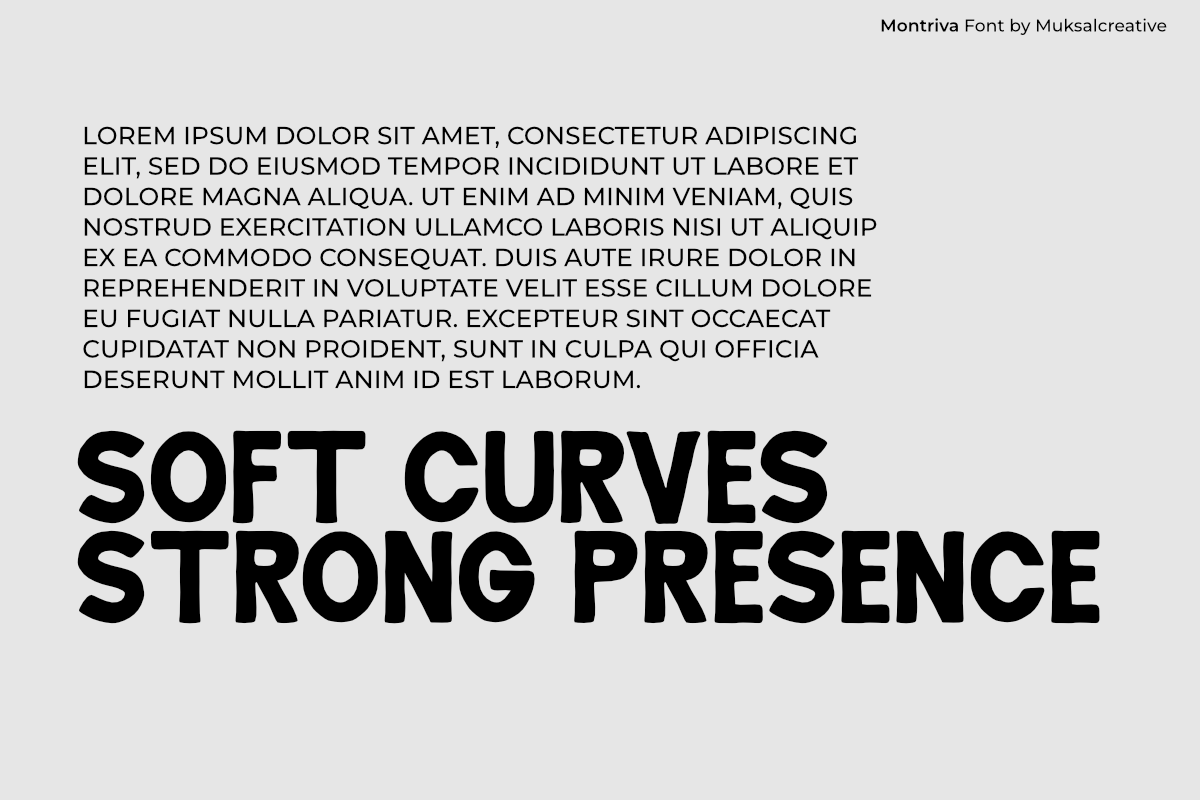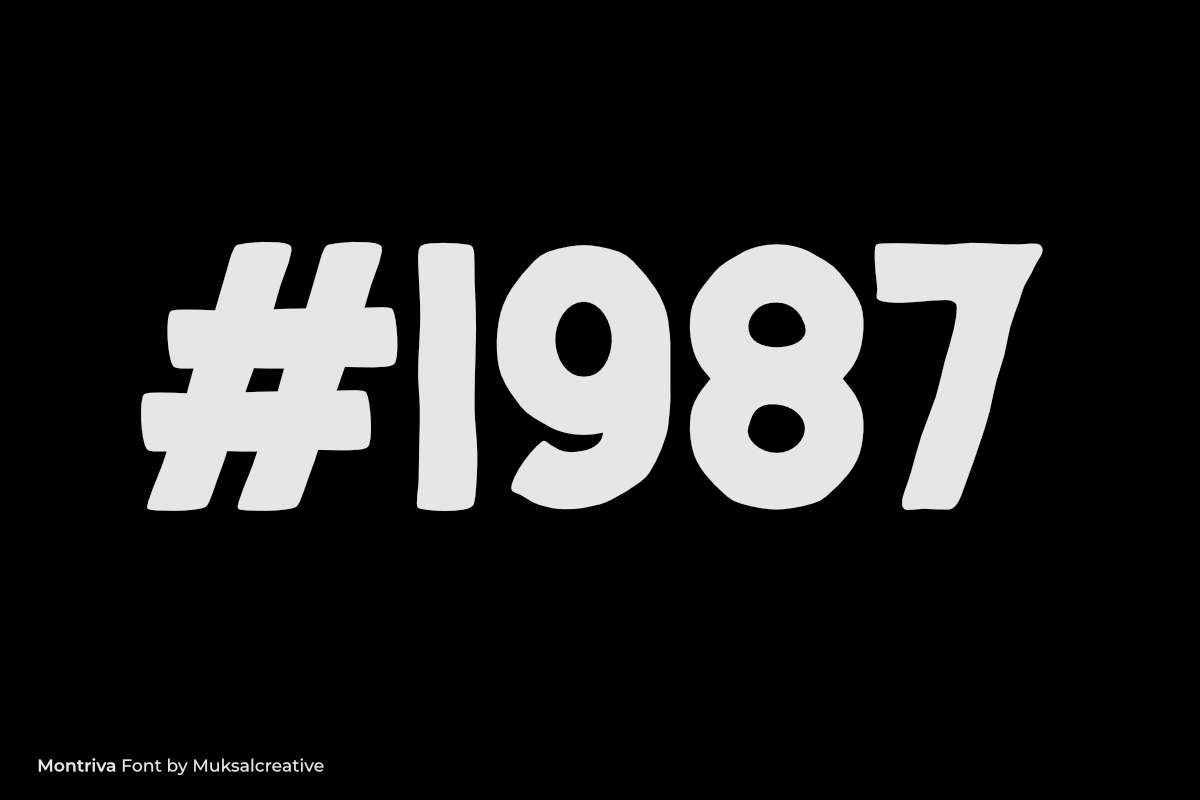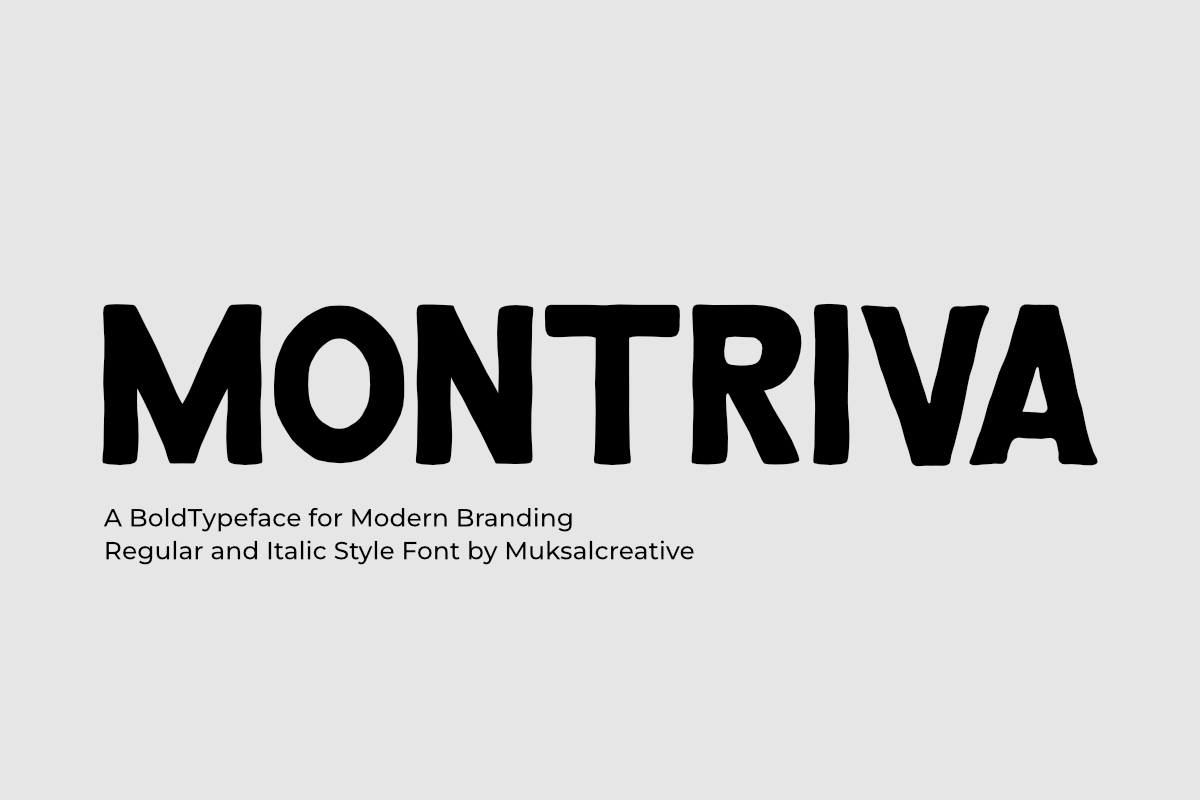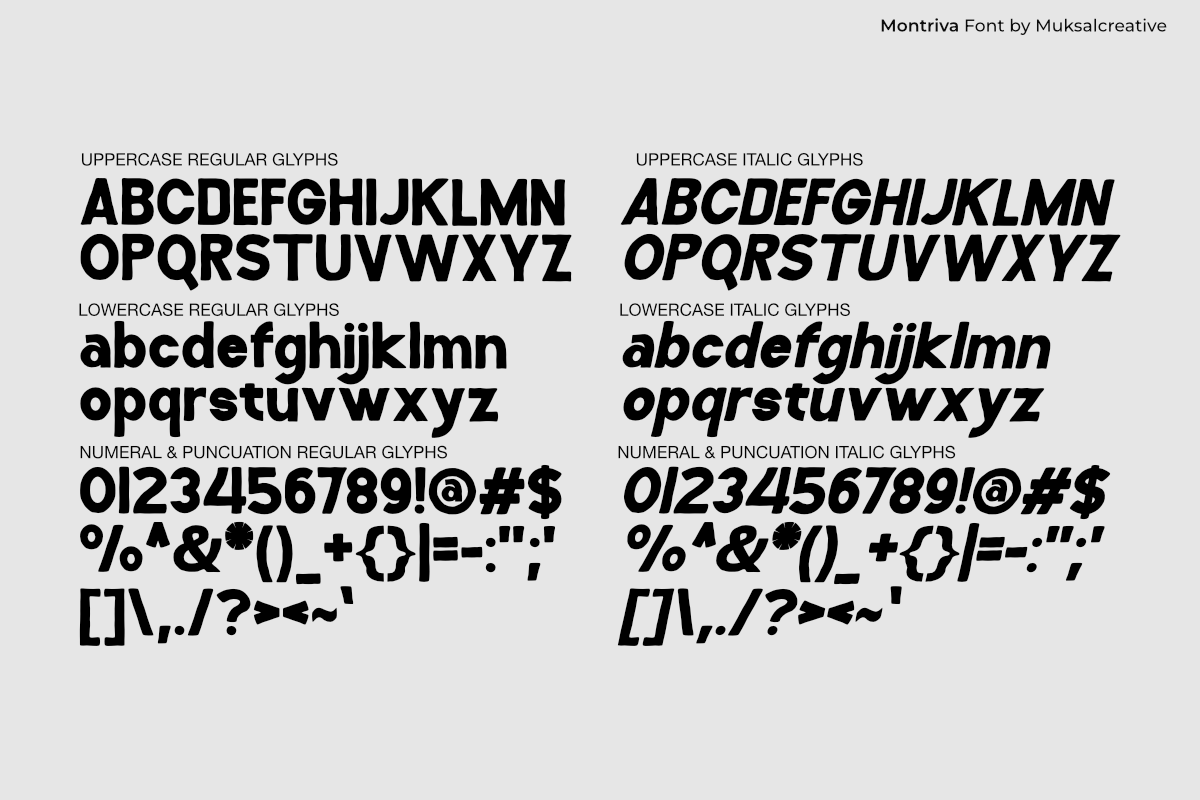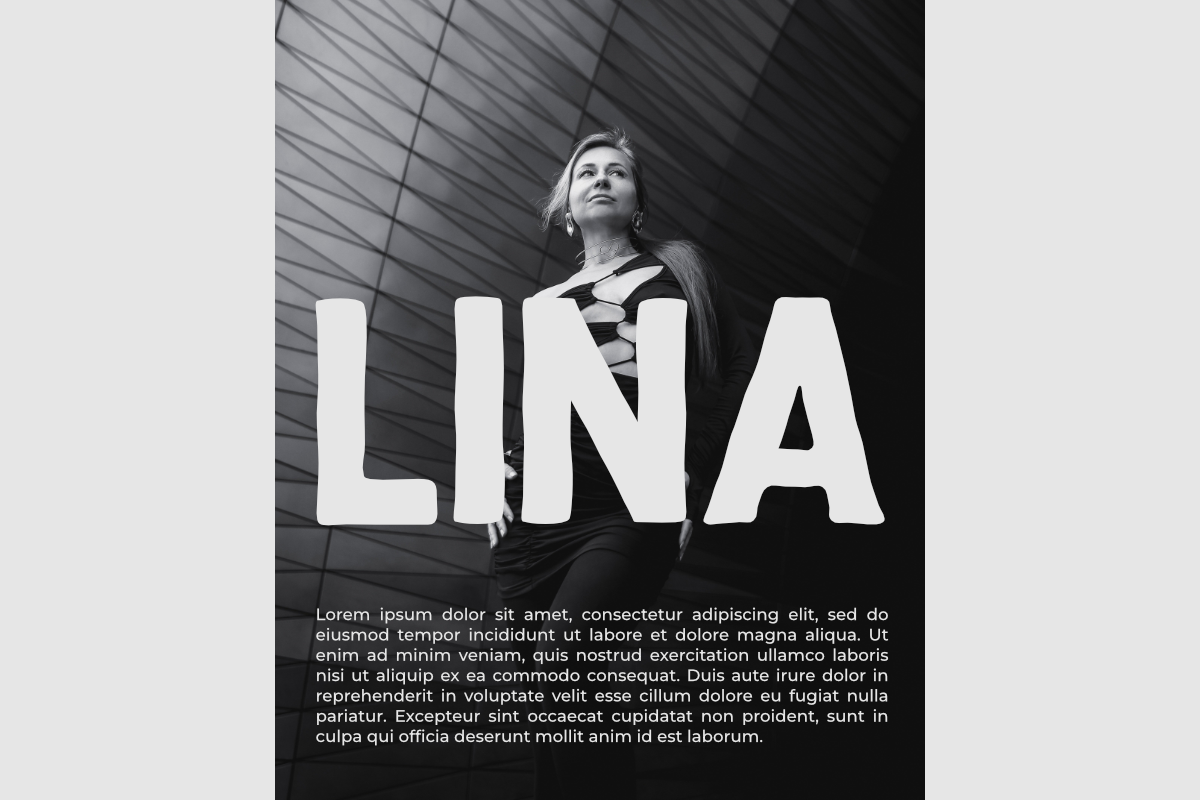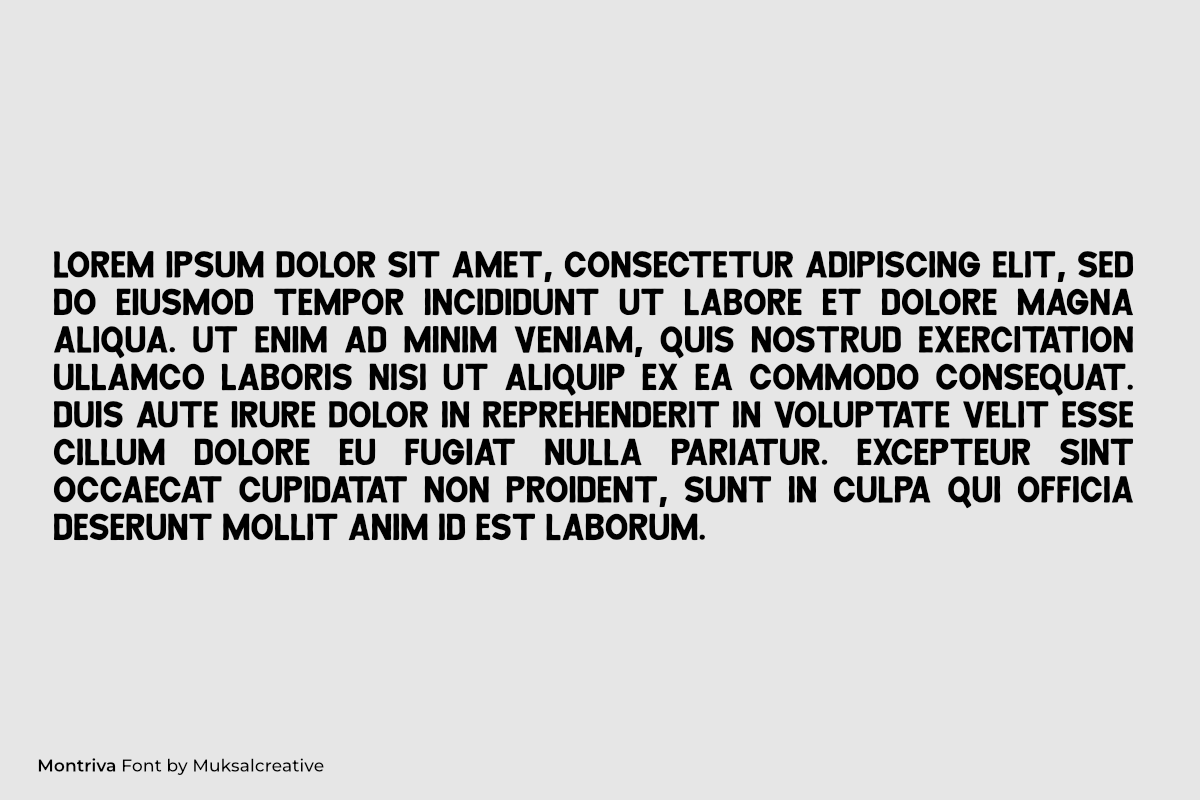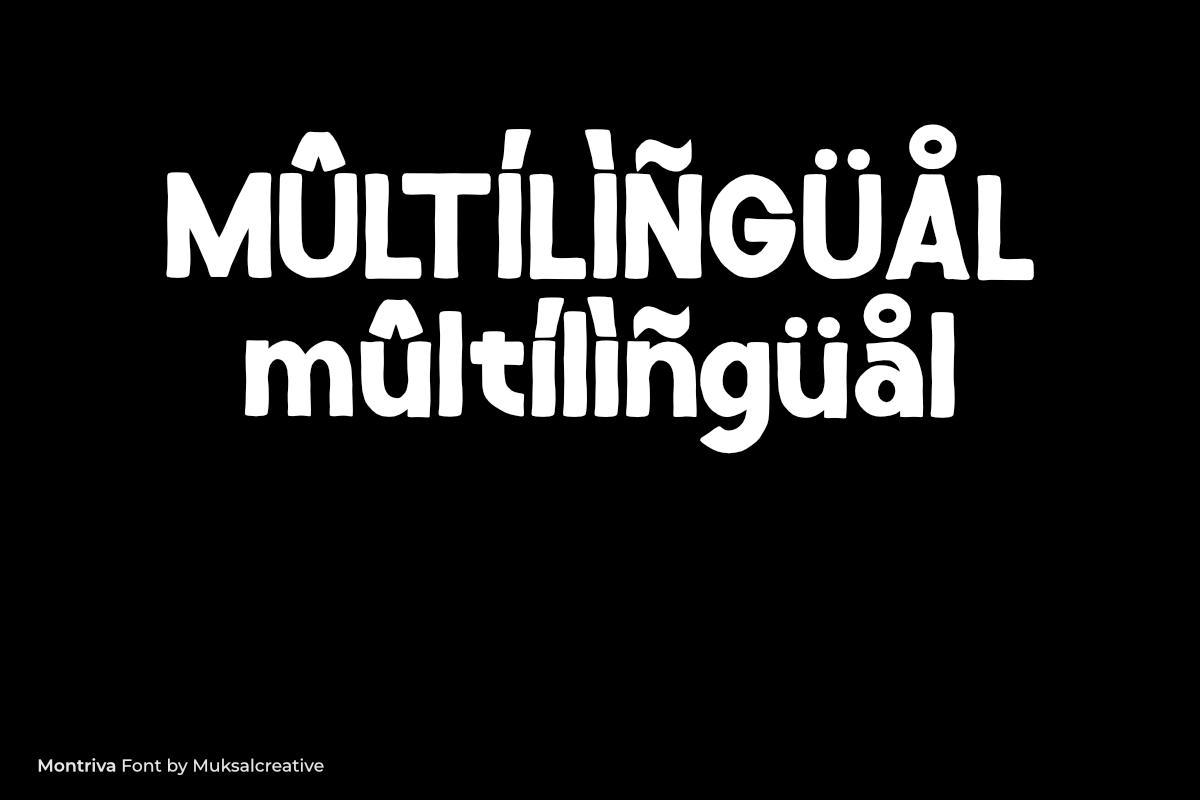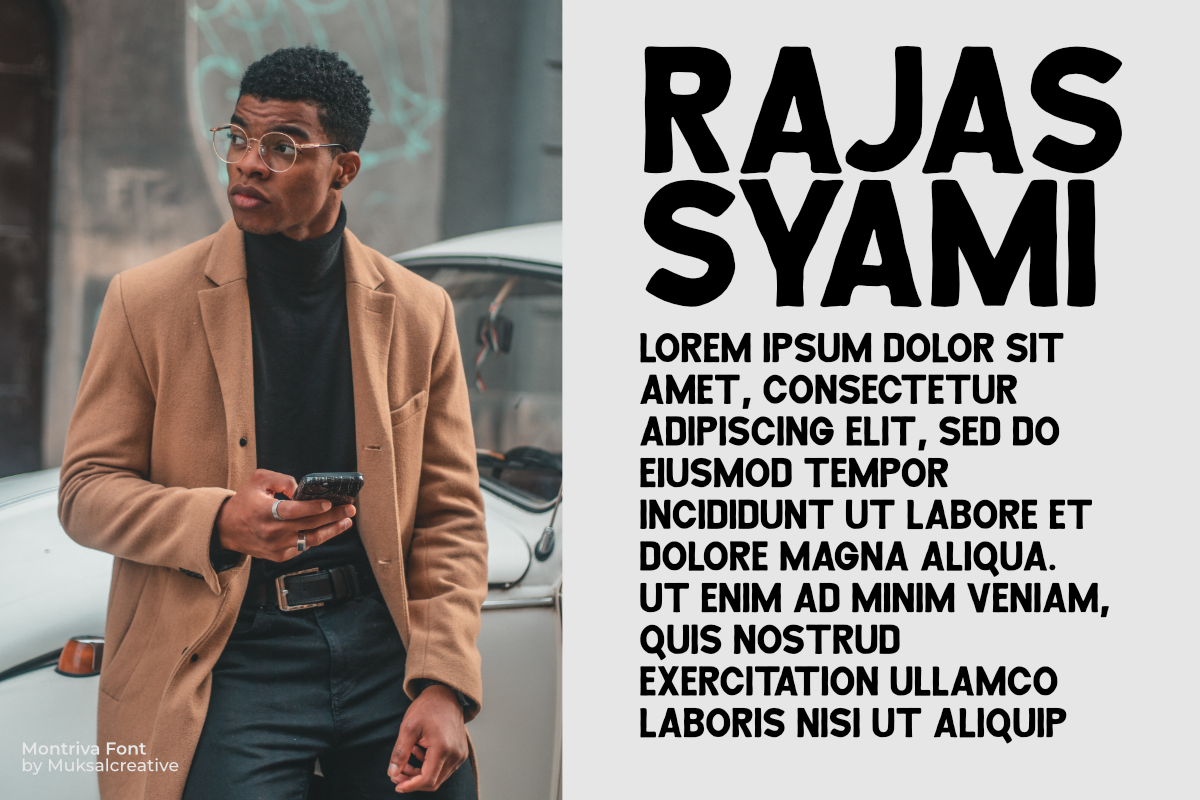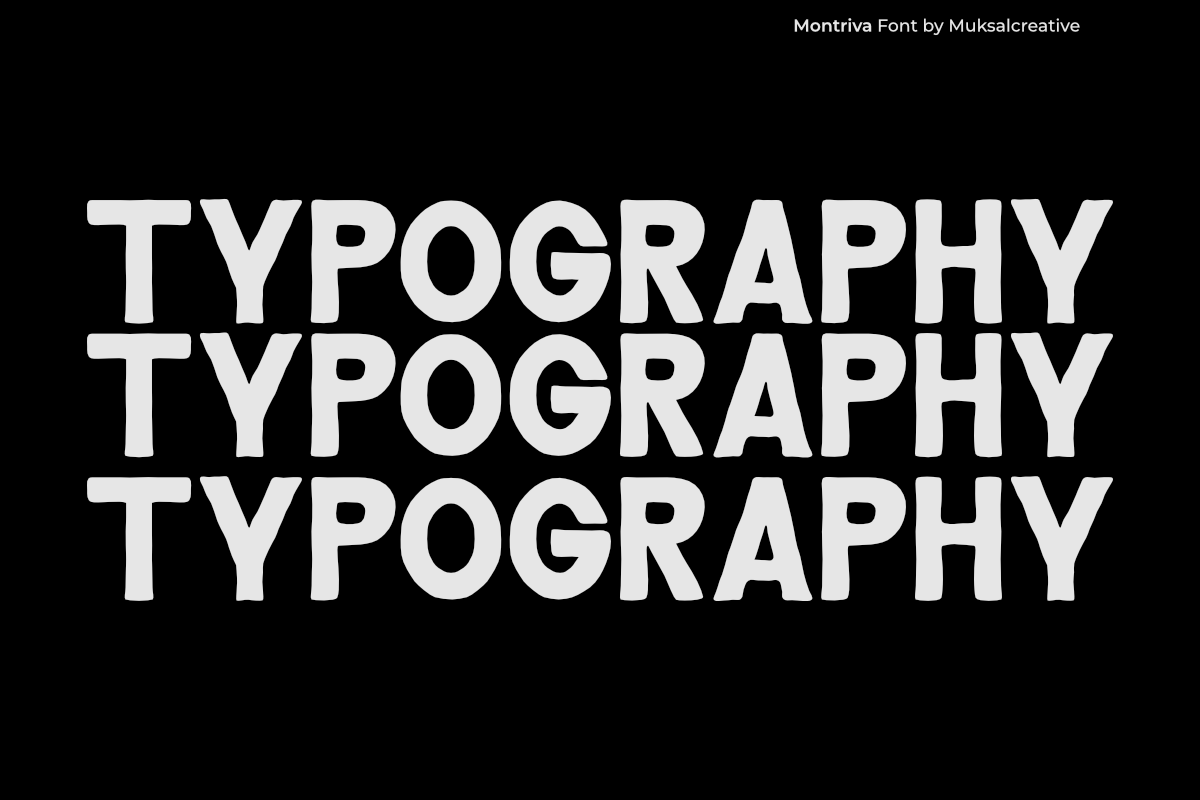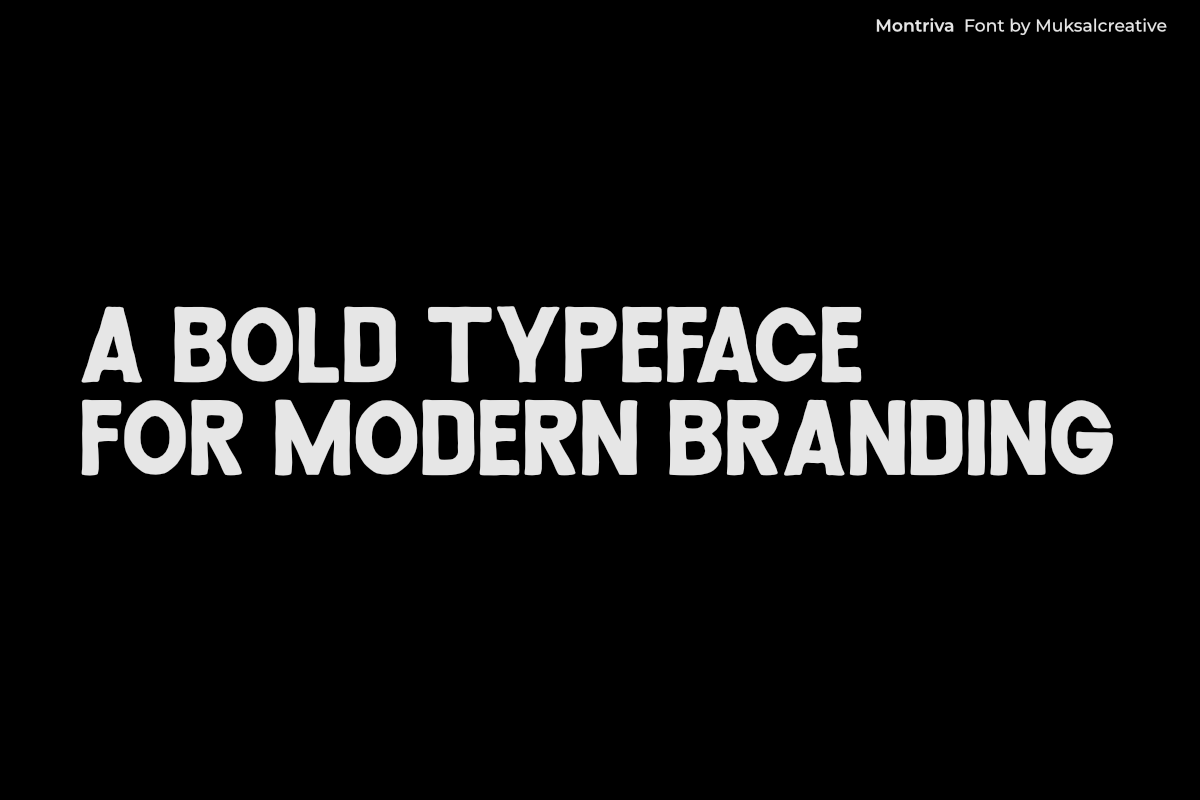
Montriva is a bold modern typeface
Montriva is a bold modern typeface with a strong and clean character, designed to deliver a confident visual presence while remaining friendly and approachable. With its solid letterforms and balanced proportions, this font creates a professional yet dynamic impression. Montriva is highly versatile for a wide range of design needs, from branding and logos to posters and digital content. Its bold style makes it stand out perfectly for headlines, while its clean structure ensures readability across various visual compositions. 🌟 Features • Regular & Italic styles • Uppercase & lowercase characters • Numerals & punctuation • Multilingual support (Latin Extended) • Ligatures • High contrast elegant serif style • File formats: OTF, TTF, WOFF